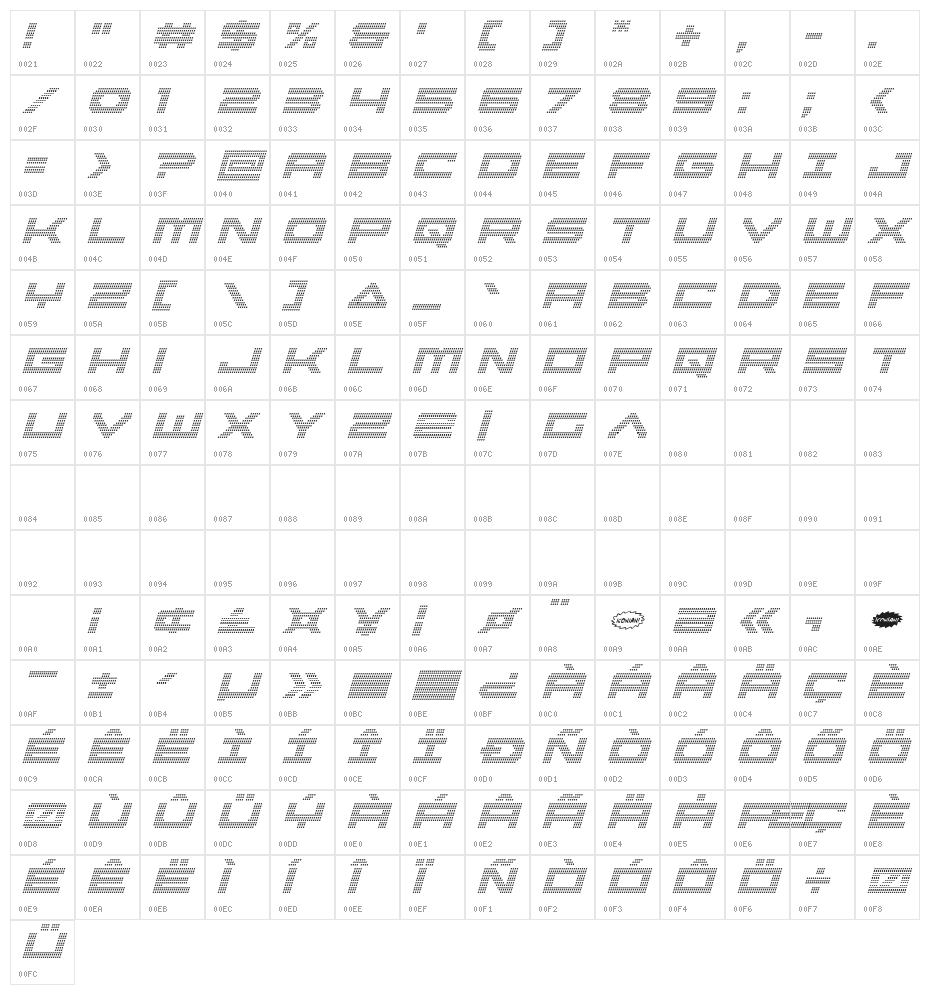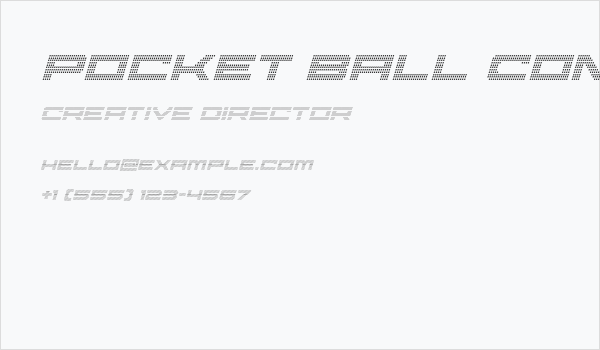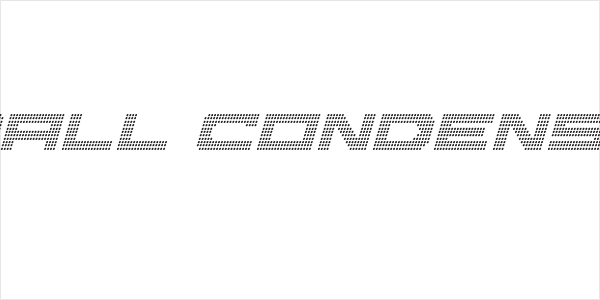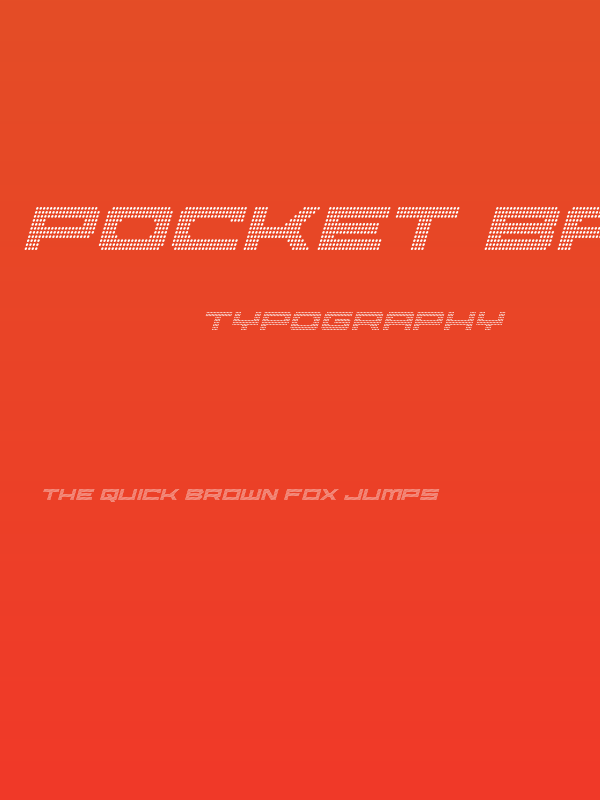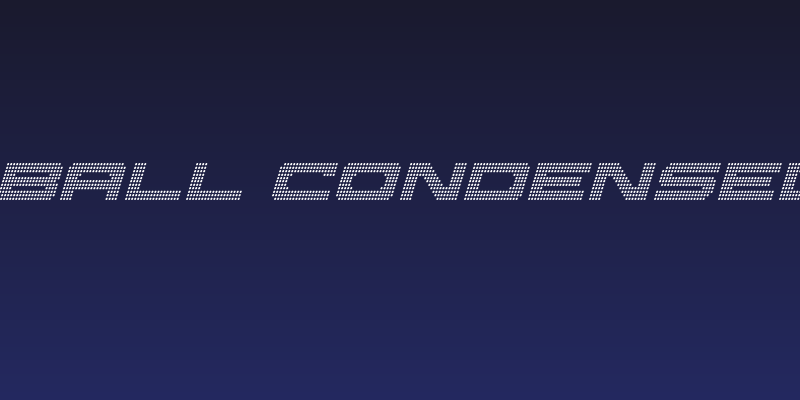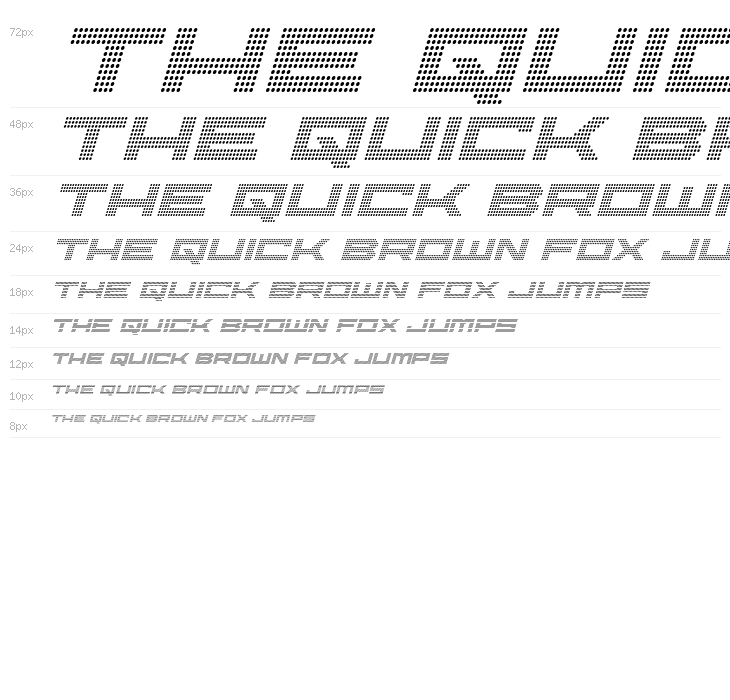
Pocket Ball Condensed Italic Font
Pocket Ball Condensed Italic Description
This font features a unique dotted pattern that creates a modern and digital aesthetic. The characters are condensed and italicized, giving them a sleek and dynamic appearance. The dots are evenly spaced, forming each letter and number with precision. This style is reminiscent of digital displays or LED screens, making it ideal for futuristic or tech-themed projects. The font maintains a consistent weight throughout, with medium contrast in stroke thickness due to the dot formation. The overall style is decorative and contemporary, suitable for eye-catching designs.
| Proposed Projects | Ideal for tech-themed designs, digital displays, futuristic branding, and modern posters. |